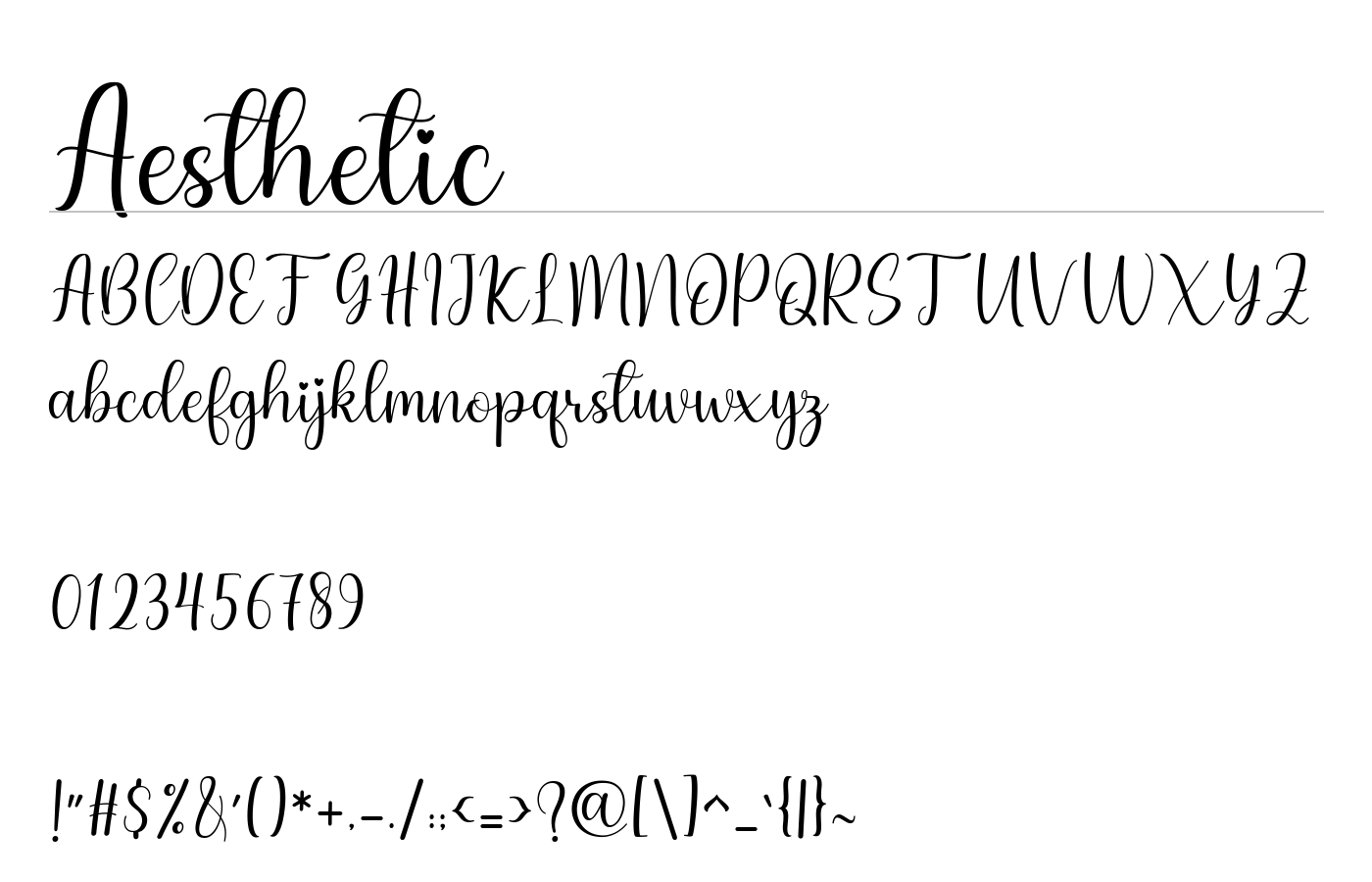
Aesthetic Font is a delicate, script-style typeface with elegant, flowing letterforms that feature gentle curves and charming heart-shaped details. Its slender, slightly condensed strokes give it a graceful and romantic feel, making it ideal for invitations, branding, and creative projects that seek a soft, feminine touch. This font works beautifully in headlines, logos, and decorative uses where a stylish and personal expression is desired.
Aesthetic Font
About Aesthetic Font
| Font family | Aesthetic Font |
| Designer | Ramadhana / Cut Story |